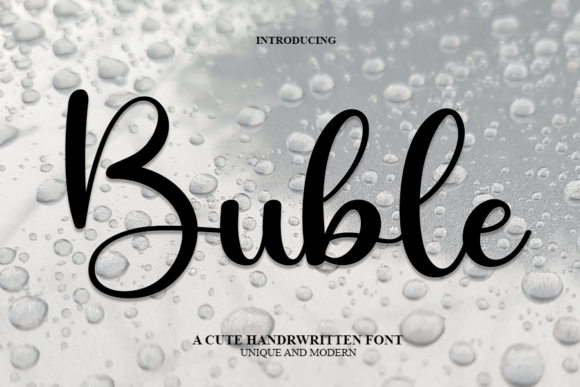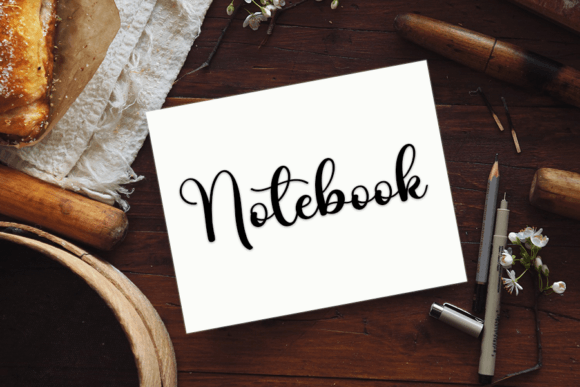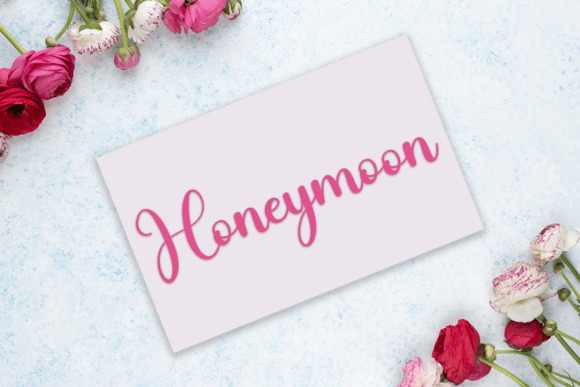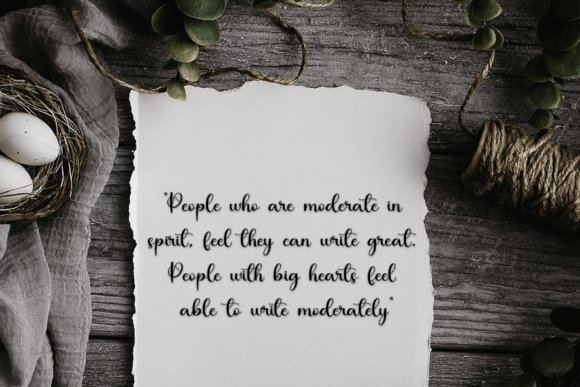
About Buble Font
**Buble: An Elegant and Feminine Typeface for Captivating Headlines**
Buble is a typeface that embodies elegance and femininity, making it a perfect choice for creating captivating headlines that leave a lasting impression. Whether you’re working on wedding stationery, invitations, florist branding, packaging, or social media posts, Buble adds a touch of sophistication and grace to your typography.
The charm of Buble lies in its elegant and finely crafted characters, meticulously designed to convey a sense of timeless beauty and femininity. Each letter exudes an air of grace and allure that enhances your headlines, making them stand out with elegance.
This typeface’s versatility ensures it can adapt to various design contexts. You can use it to create exquisite wedding stationery that reflects the beauty of the occasion, infuse a sense of femininity into florist branding, add elegance to packaging, or create captivating social media posts that resonate with your audience.
In summary, Buble is more than just a typeface; it’s a source of elegance and femininity that enhances your headline designs. Its finely crafted characters make it the perfect choice for creating captivating and sophisticated typography. With Buble, your creative projects will shine with a touch of classic and timeless beauty. Choose Buble, and let your headlines captivate with their elegant and feminine presence.